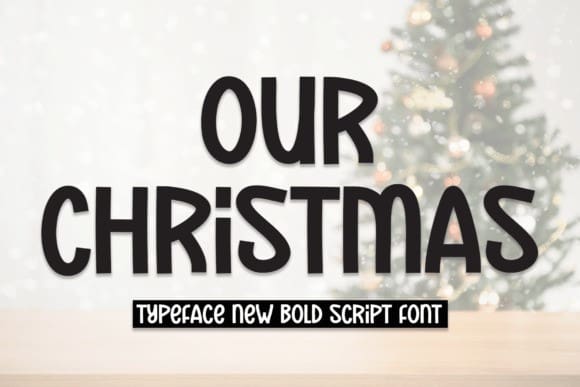
Our Christmas Font
Our Christmas Font is a bold and fun handwritten font. Its latest style letters are perfect for wall displays, wedding invitations, social media posts, logos, advertisements, product packaging, product designs, labels, photography, watermarks, invitations, stationery, and any project that requires unique typography.